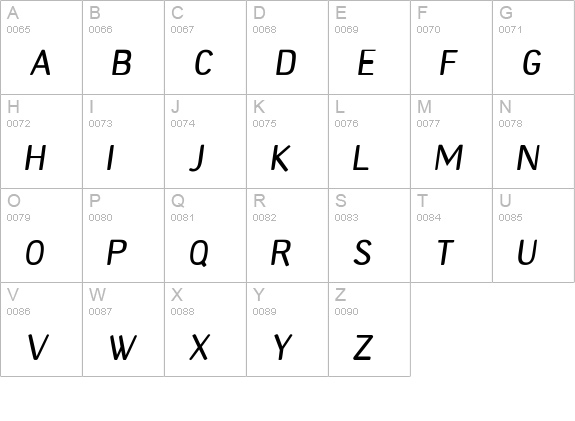
Felthgothic-BoldItalic Font Details
Introducing Felthgothic-BoldItalic font, a striking and elegant typeface that effortlessly combines boldness with an intricate italic style. This unique font exudes sophistication and modernity, making it perfect for a wide range of design projects. Whether you're creating sleek branding materials, eye-catching posters, or stylish website headers, Felthgothic-BoldItalic is sure to make a statement. What sets Felthgothic-BoldItalic apart is its seamless blend of sharp, angular lines and graceful curves, creating a visually appealing contrast that captivates the eye. The bold weight commands attention, while the italicized slant adds a touch of dynamic flair to your text. This font is versatile and can be used for both headlines and body text, ensuring consistency and coherence in your designs. Best of all, Felthgothic-BoldItalic is available for free download at FontsMarket.com. This means you can easily access this high-quality font without breaking the bank, making it a valuable addition to your font library. Don't miss out on the opportunity to elevate your designs with the bold and italic charm of Felthgothic-BoldItalic. Download it today and unleash your creativity!